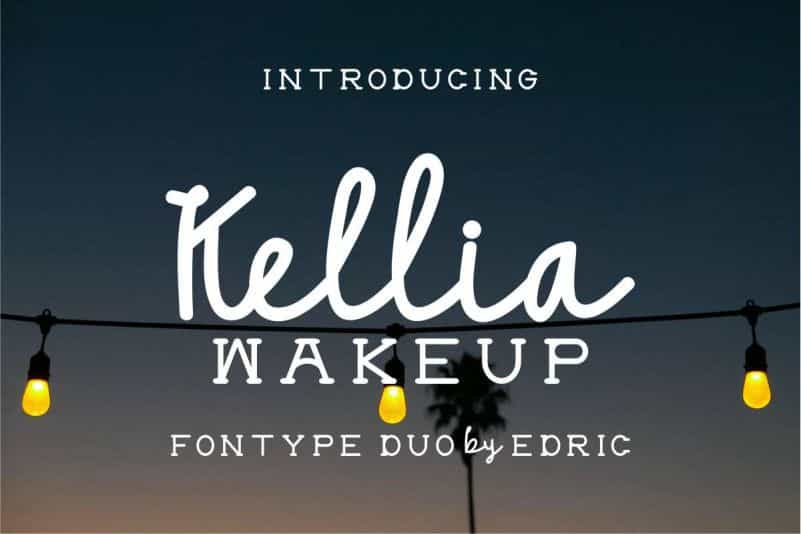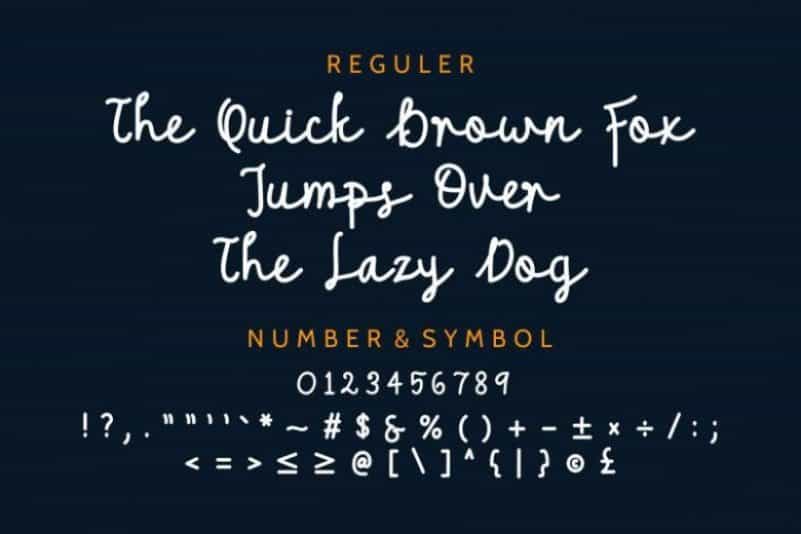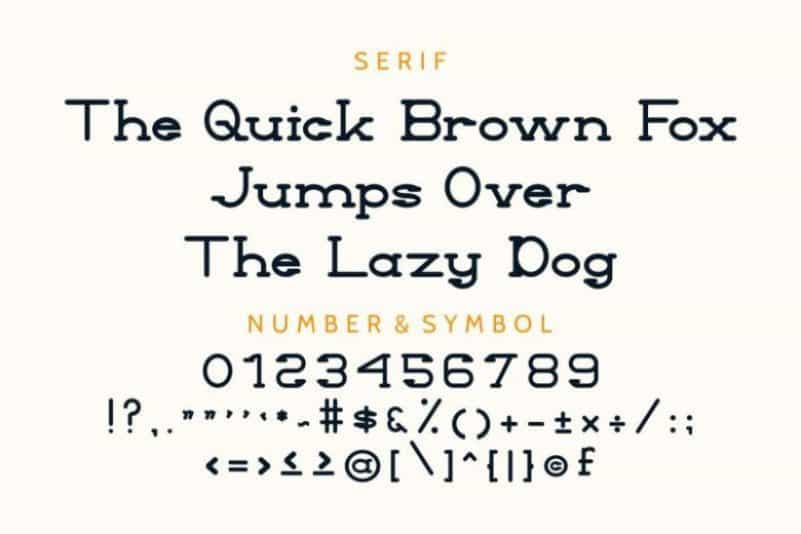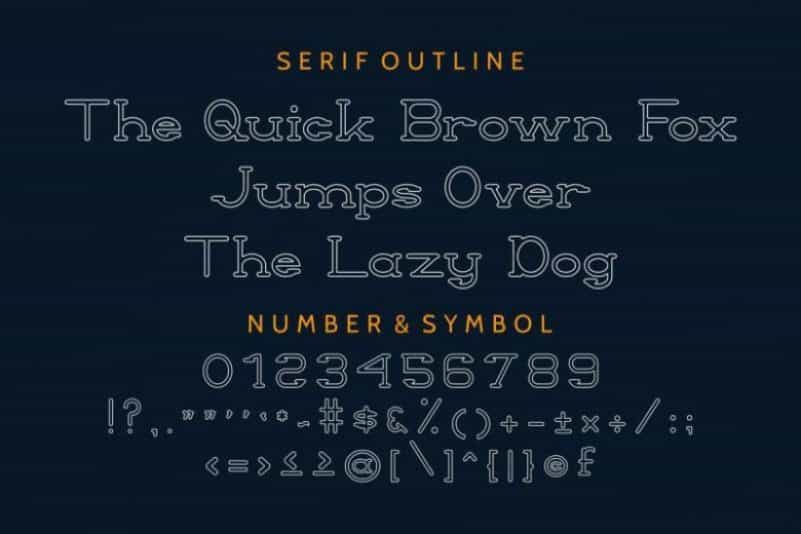
Kellia Wakeup Script & Serif font family. Kellia Wakeup is a font family with three exclusive styles : script, serif, and outline. It has an old-style and handsome special glyphs.